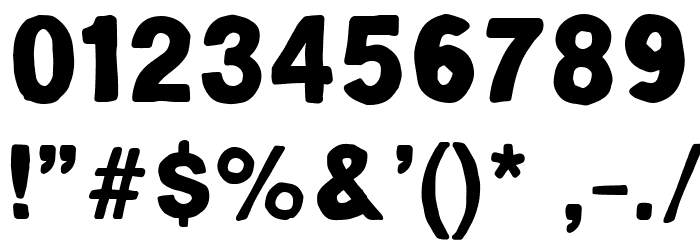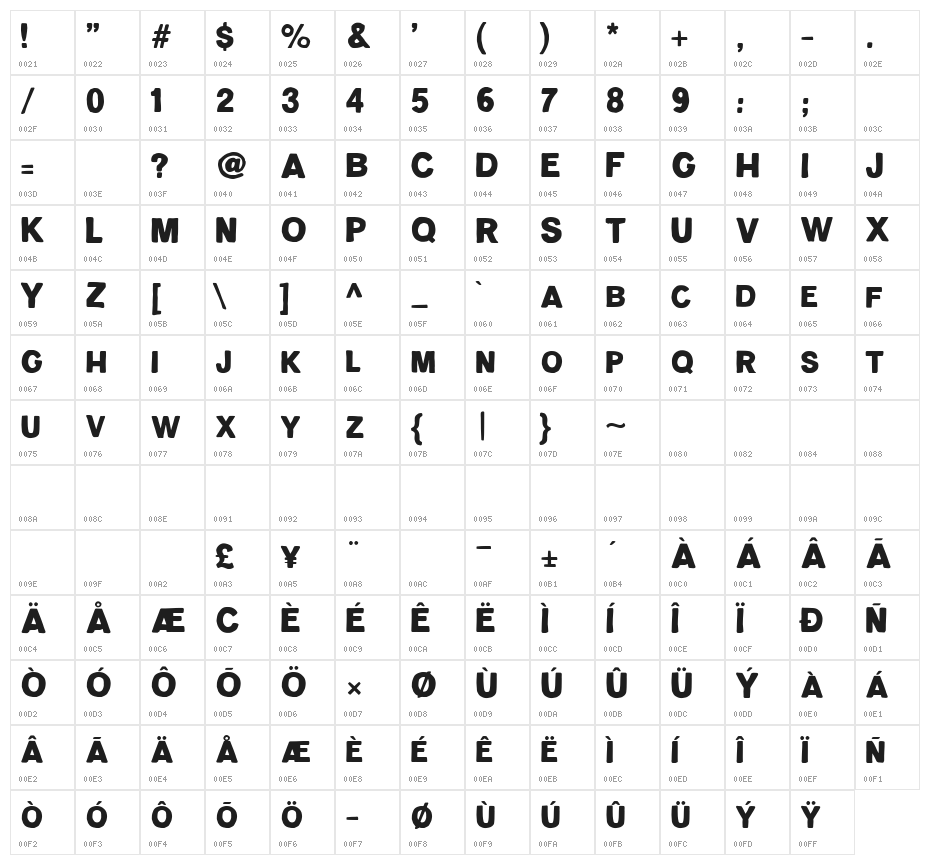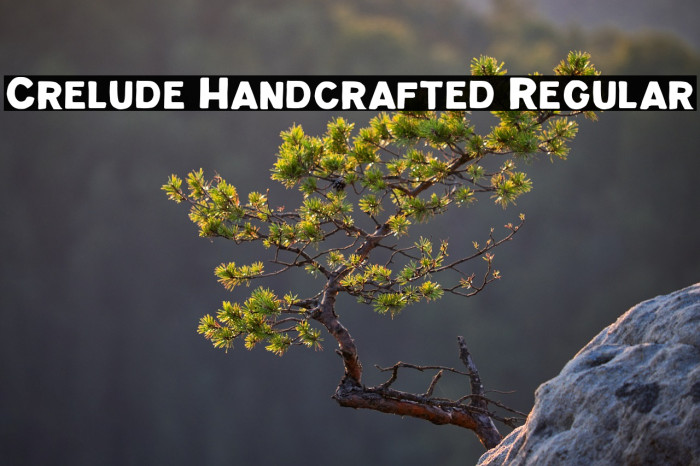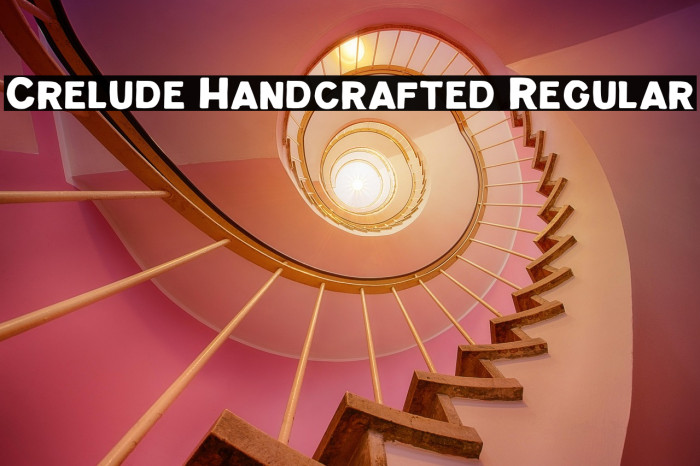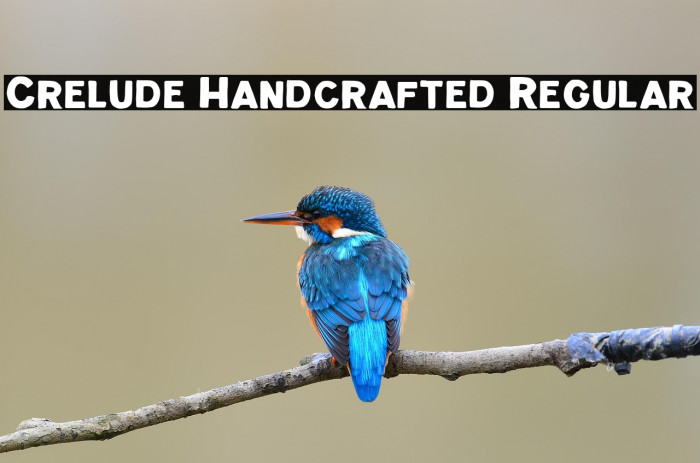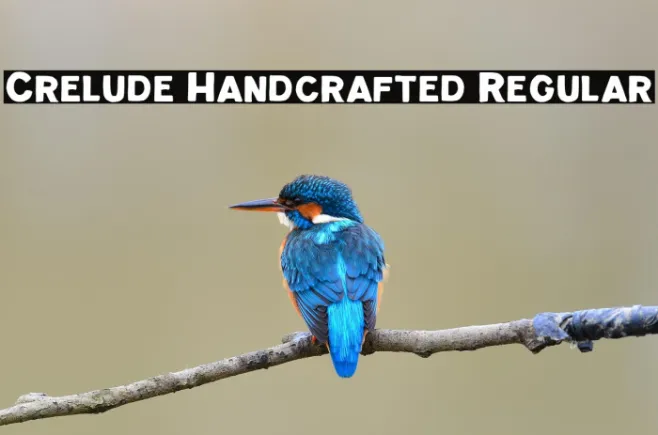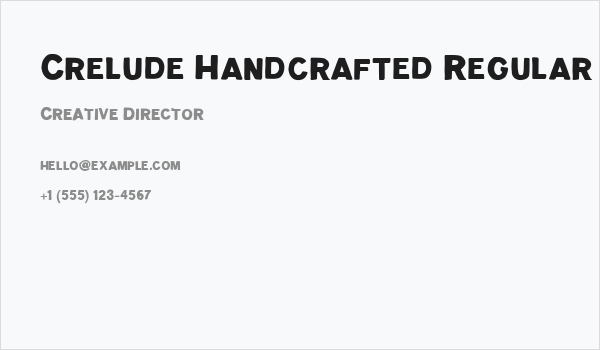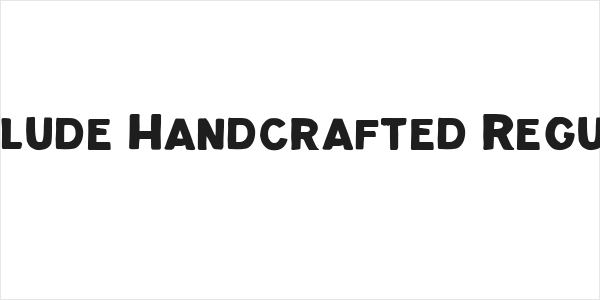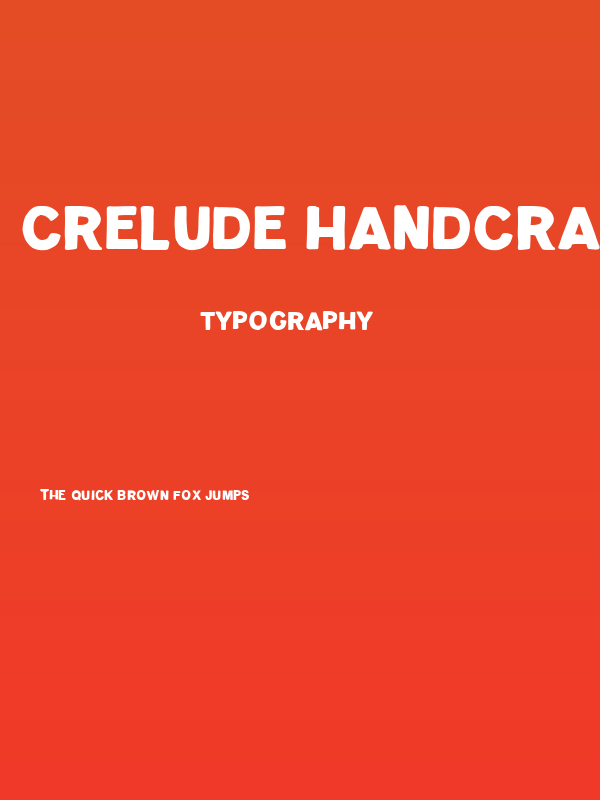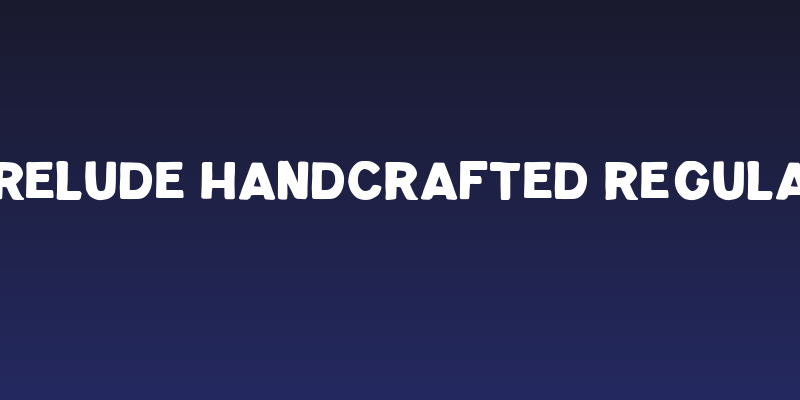
Crelude Handcrafted Regular Font
Crelude Handcrafted Regular Description
This font features a bold and handcrafted style, characterized by its thick, rounded strokes and slightly irregular shapes, giving it a playful and organic appearance. The uppercase and lowercase letters maintain a consistent weight, contributing to its bold presence. The numbers and special characters follow the same design principles, ensuring uniformity across all glyphs. The font's handcrafted nature is evident in its slightly uneven edges, adding a touch of authenticity and warmth. Its boldness makes it highly legible, even at smaller sizes, while the handcrafted elements provide a unique, artistic flair.
| Proposed Projects | Ideal for projects that require a personal touch, such as greeting cards, posters, branding for artisanal products, or any design that benefits from a handcrafted aesthetic. |